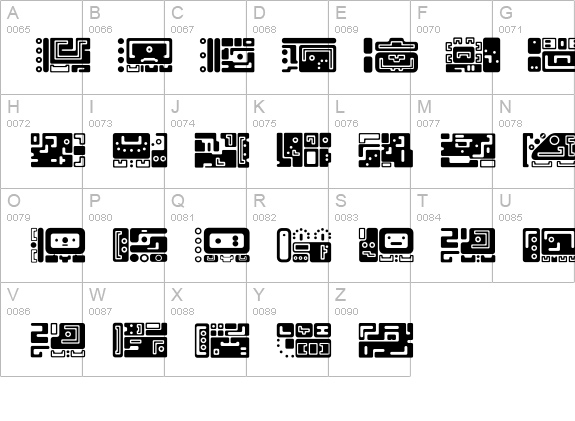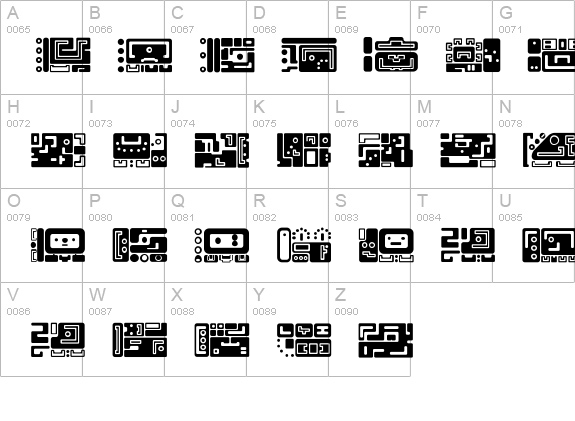
Mayaruler1 Font Details
Introducing Mayaruler1 font, a versatile and elegant typeface perfect for a wide range of design projects. This font exudes sophistication and style with its sleek lines and modern aesthetic. Mayaruler1 font is ideal for creating eye-catching logos, branding materials, posters, and more. The best part? Mayaruler1 font is available for free download at FontsMarket.com. This means you can access this stunning font without any cost, making it a valuable addition to your design toolkit. Don't miss out on the opportunity to elevate your projects with the timeless charm of Mayaruler1 font. Download it today and start creating beautiful designs effortlessly.